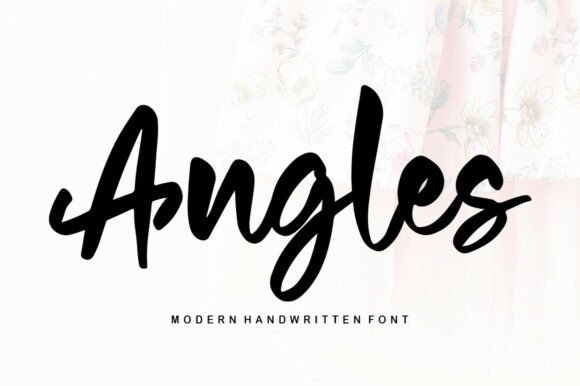
The Perfect Brushstroke for Your Next Masterpiece As designers, we’ve all been there – staring at a blank canvas, waiting for inspiration to strike. The cursor blinks, and our minds wander to the perfect font that will bring our creation to life. For those seeking a touch of elegance and sophistication, look no further than…